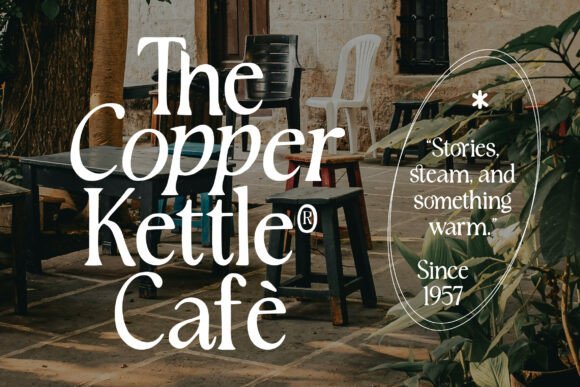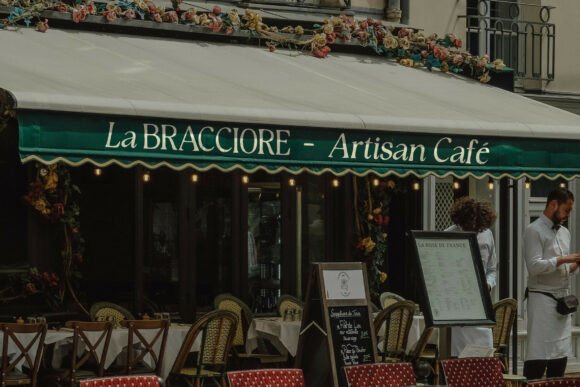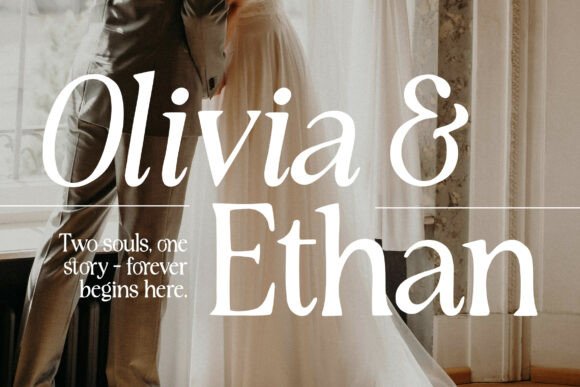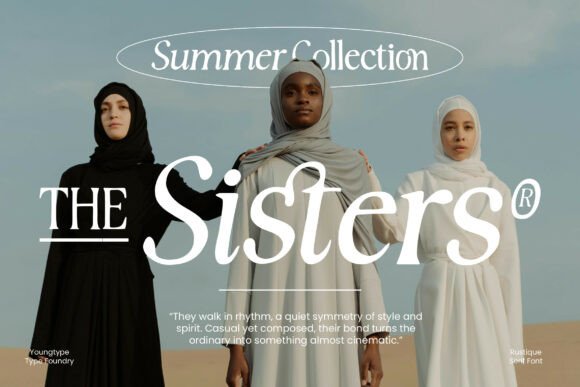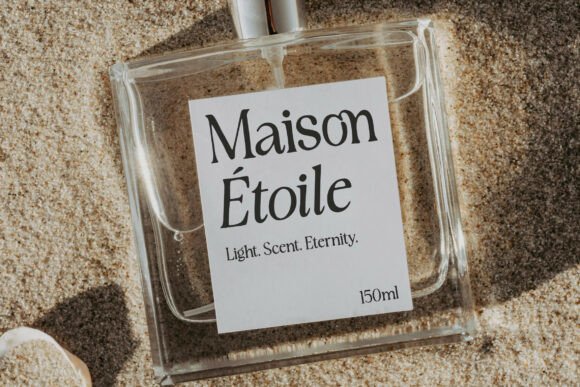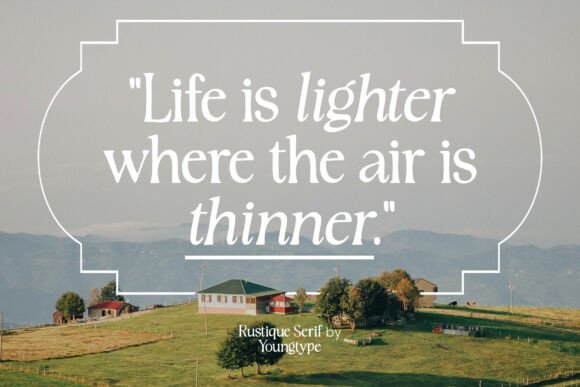
Introduction to Rustique Serif Font
Rustique Serif is a refined and stylish typeface that combines a rough serif texture with elegant letterforms, making it perfect for creating a timeless, rustic aesthetic.
| 👤 Author | Youngtype |
Available in both regular and italic styles, this font offers flexibility for various design projects, while its opentype ligatures add a unique and artistic touch to typography compositions Its handcrafted feel brings warmth and character, ideal for branding, editorial layouts, packaging, or any creative work that seeks a blend of sophistication and vintage charm.